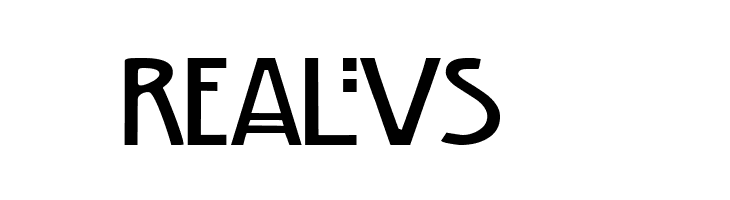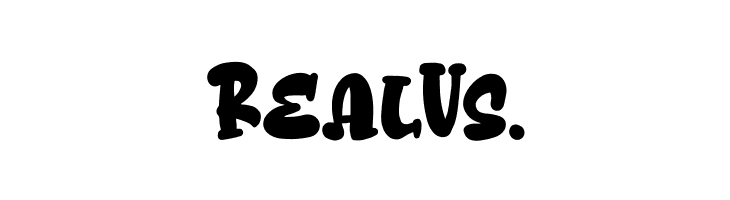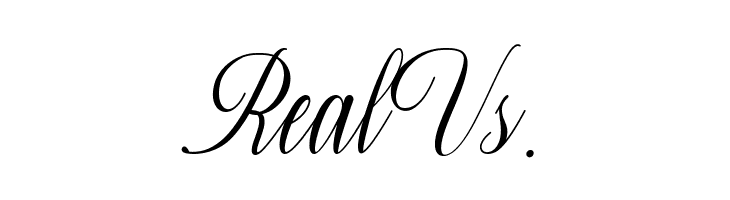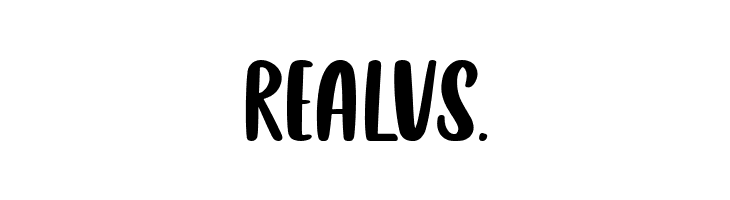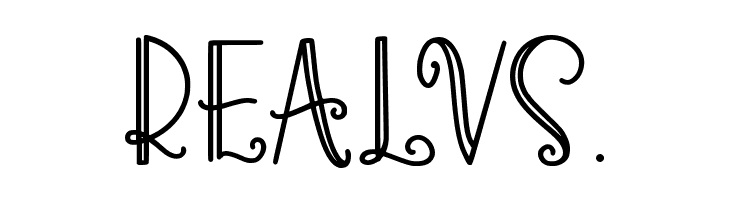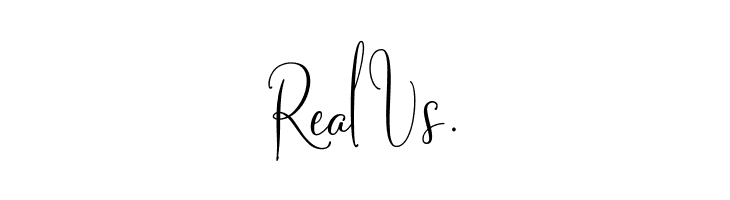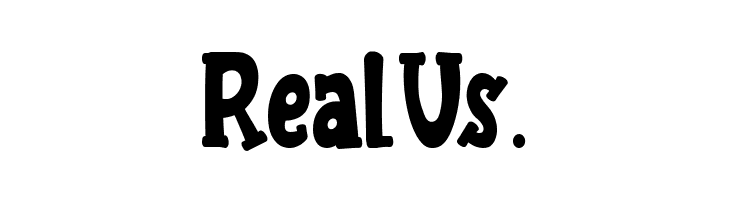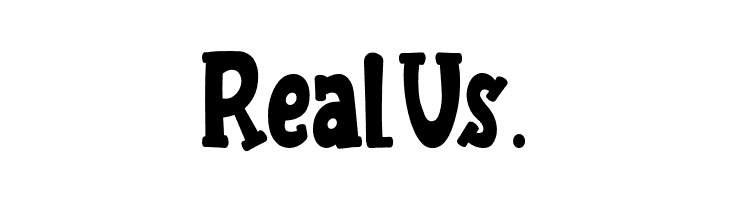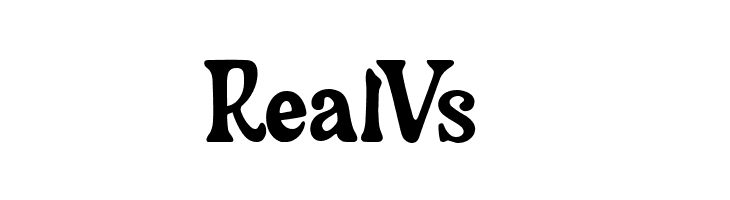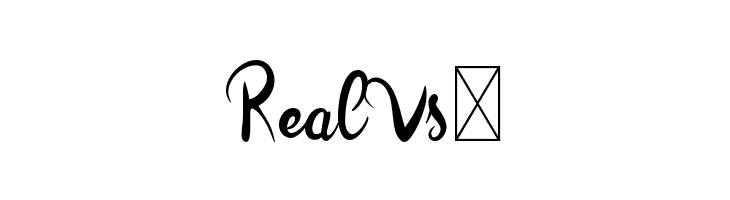
A playful, stencil-like font with bold, irregular shapes and a modern, artistic style.
A playful, bold font with thick, rounded strokes and a whimsical style.
A pixelated, retro-style font inspired by early digital displays.
A playful, bold font with rounded, cartoonish characters.
A playful, bold font with rounded characters and a whimsical style.
A playful, bold handwritten font with a smooth, flowing style.
Bold, playful handwritten script with smooth, connected strokes.
A dynamic, brush-style script font with expressive strokes.
A decorative and elegant font with cursive and bold elements, perfect for artistic projects.
A high-contrast, elegant serif font with a classic yet modern appeal.
An elegant serif font with high contrast and a refined italic style.
An outlined, geometric font with bold lines and a modern aesthetic.
An elegant outline serif font with an italic slant, offering a refined and classic appearance.
An elegant, cursive font with flowing, sophisticated letterforms.
A bold, expressive brush script with dynamic strokes and artistic flair.
A bold, rounded font with a playful and whimsical style.
A playful, bold font with whimsical and irregular shapes.
A graceful script font with elegant swashes and a classic calligraphic style.
A playful and whimsical decorative font with bold, curvy characters.
An elegant script font with flowing, cursive letters and refined swashes.
A playful and elegant script font with flowing, cursive letterforms.
A fluid, cursive script with elegant, sweeping strokes.
A playful, bold handwritten font with rounded, whimsical characters.
A lively and elegant script font with bold, fluid strokes.
A bold, playful handwritten font with rounded edges and dynamic style.
A playful and whimsical font with curly, decorative strokes.
A playful, handwritten font with rounded, consistent strokes and a casual vibe.
A whimsical, flowing script font with elegant, elongated strokes.
A whimsical, flowing script font with elegant, hand-drawn characteristics.
A playful and elegant script font with a handwritten style.
A playful, casual script font with smooth, flowing lines and a handwritten appearance.
A dynamic brush script font with fluid, hand-painted strokes.
A bold, playful font with thick, rounded shapes and a whimsical style.